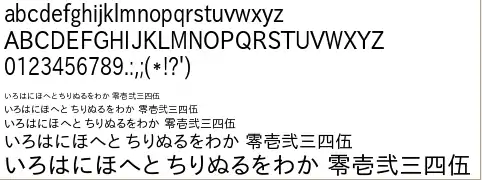
A screenshot of IPAMonaPGothic
Mona Font is both a Japanese proportional pixel font for the X Window System, derived from the Shinonome raster font family,[1] and a TrueType font.[2] It aims to represent Shift JIS art graphics properly, almost all of which require the MS PGothic font. Mona is named after Mona, a character-based mascot of 2channel.
Mona uses glyphs from Shinonome (東雲) version 0.9.9 (Gothic) for embedded bitmaps. In version 2.30-pre, it incorporated outline from Kochi-Gothic. However, it was changed to Kochi-substitute in 2.30-pre2 after discovering the copyright violation in Kochi font. Glyphs share the characteristics of MS PGothic.
Mona supports the following code pages: 1252 (Latin 1), 1250 (Latin 2: East Europe), 1251 (Cyrillic), 1253 (Greek), 932 (JIS/Japan), 737 (Greek; former 437G), 437 (US).
mona-outline
mona-outline version 2.30pre2 is included with the source code for the Mona Font source package, which consists of a subset of glyphs found in Mona. The OpenType layout table supports standard ligatures in the default language. When the font is viewed under Windows Font Viewer, a horizontal stroke overlays the glyph.
mona-outline supports the following code pages: 932 (JIS/Japan), 437 (US).
IPA monafont
IPA monafont is an extension of IPA Font (IPAフォント),[2] Sazanami Font (さざなみフォント),[3] Mona Font (モナーフォント),[4] M+ Fonts (M+フォント)[5] created by Jun Kobayashi, which consists of a family of fonts:
• IPAMonaGothic (IPA モナー ゴシック)
• IPAMonaMincho (IPA モナー 明朝)
• IPAMonaPGothic (IPA モナー P ゴシック)
• IPAMonaPMincho (IPA モナー P 明朝)
• IPAMonaUIGothic (IPA モナー UI ゴシック)
The IPA monafont family supports following the code pages: 1252 (Latin 1), 1251 (Cyrillic), 932 (JIS/Japan), 950 (Big-5), Macintosh Character Set (US Roman), Windows OEM Character Set, 866 (MS-DOS Russian), 865 (MS-DOS Nordic), 863 (MS-DOS Canadian French), 861 (MS-DOS Icelandic), 860 (MS-DOS Portuguese), 855 (IBM Cyrillic; primary Russian), 437 (US).
Glyphs for CJK ideographs are reworked to look more like Arial Unicode MS, while sub-glyphs for these characters are repositioned and rescaled. Similar to the MS Gothic and MS Mincho font families, reverse solidus glyph uses a yen sign instead of a backslash. A similar non-standard substitution can be found in the Gulim and Dotum font families.
Note: Some glyphs representing non-whitespace characters are blank.